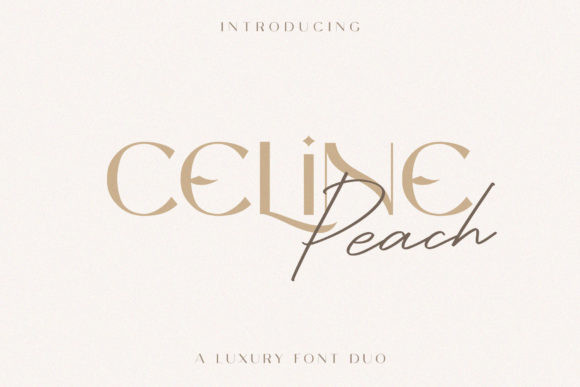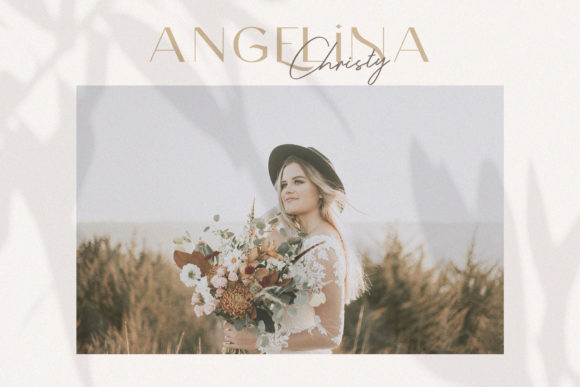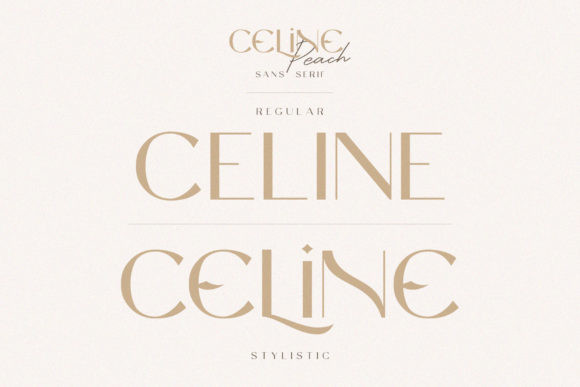
Celine Peach Font
Celine Peach delivers an incredibly luxuriously looking display font duo. These two typefaces are a match made in heaven, and perfectly complement each other!
This font is PUA encoded which means you can access all of the elegant glyphs and swashes with ease! It also features a wealth of special features including alternate glyphs and ligatures.